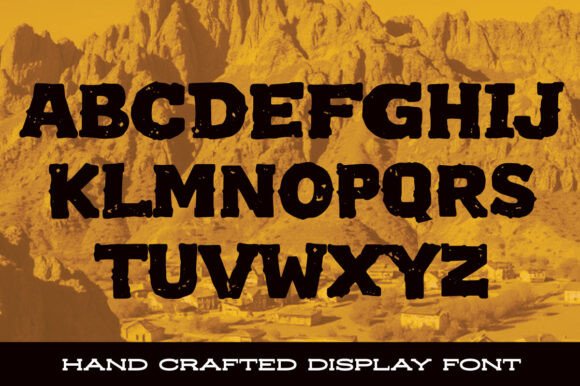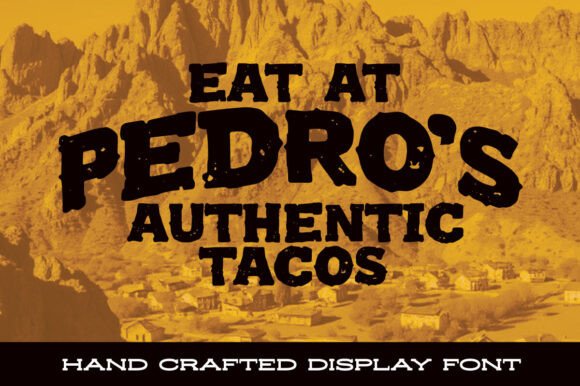
Introduction to Scorch Font
Scorch is a raw, hand-drawn grunge title/display font with a bold, distressed edge.
Its rugged strokes and weathered details give it the look of something burned, scraped, and worn by time Perfect for high-impact designs, album covers, streetwear branding, and anything that needs a scorched, rebellious attitude.
Key Features of Scorch Font